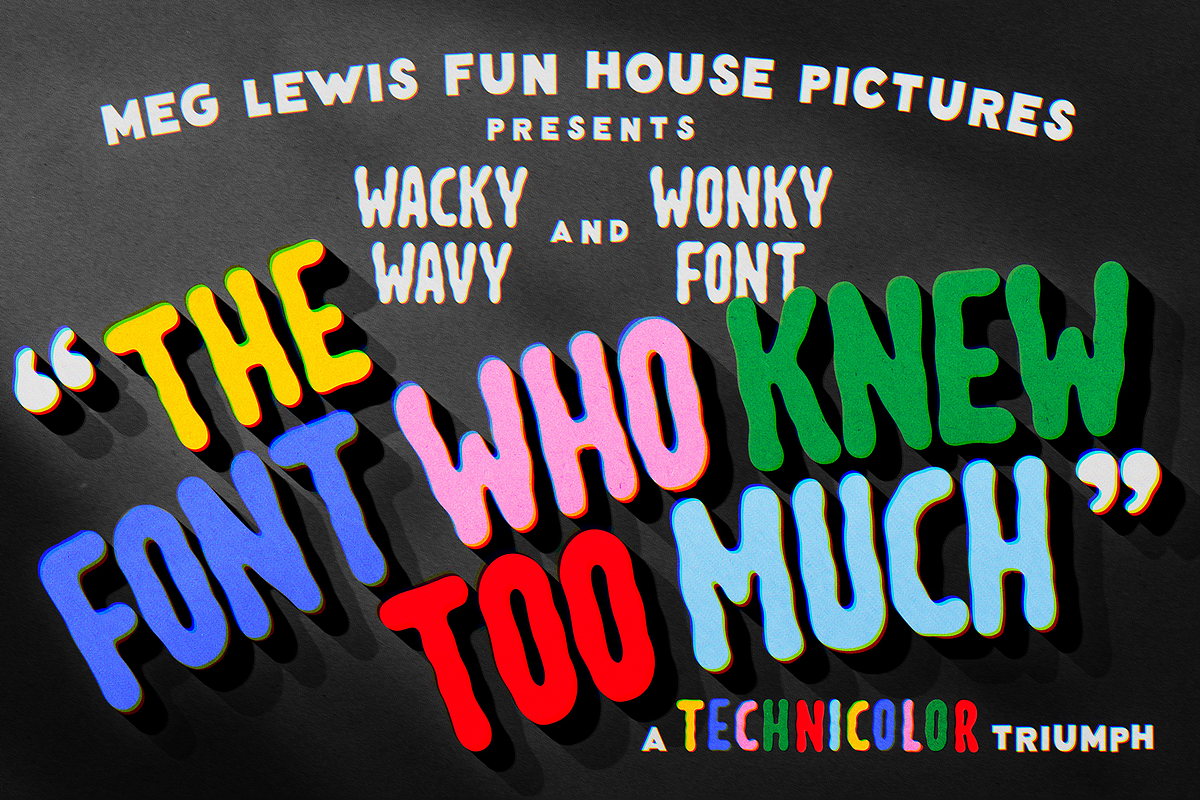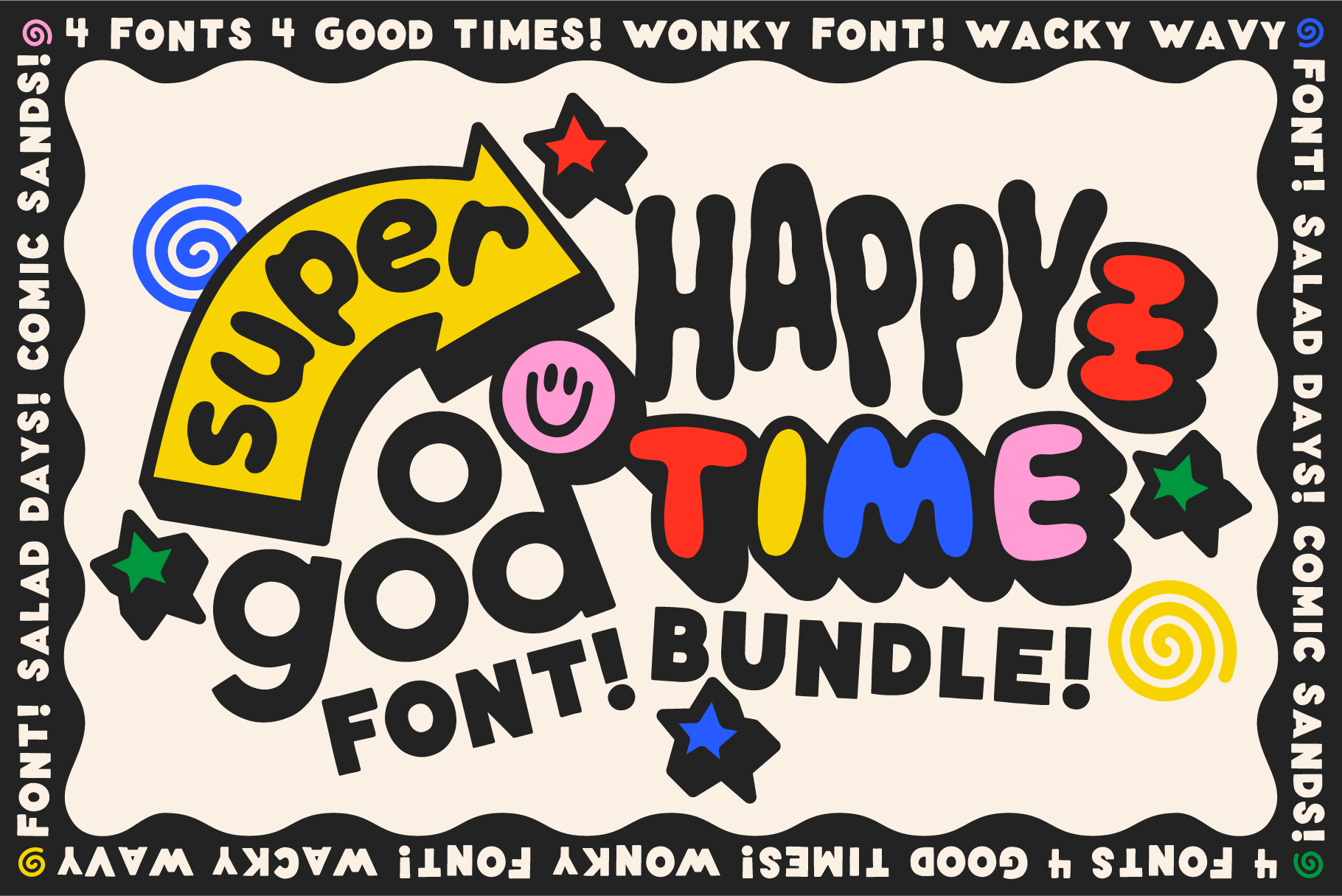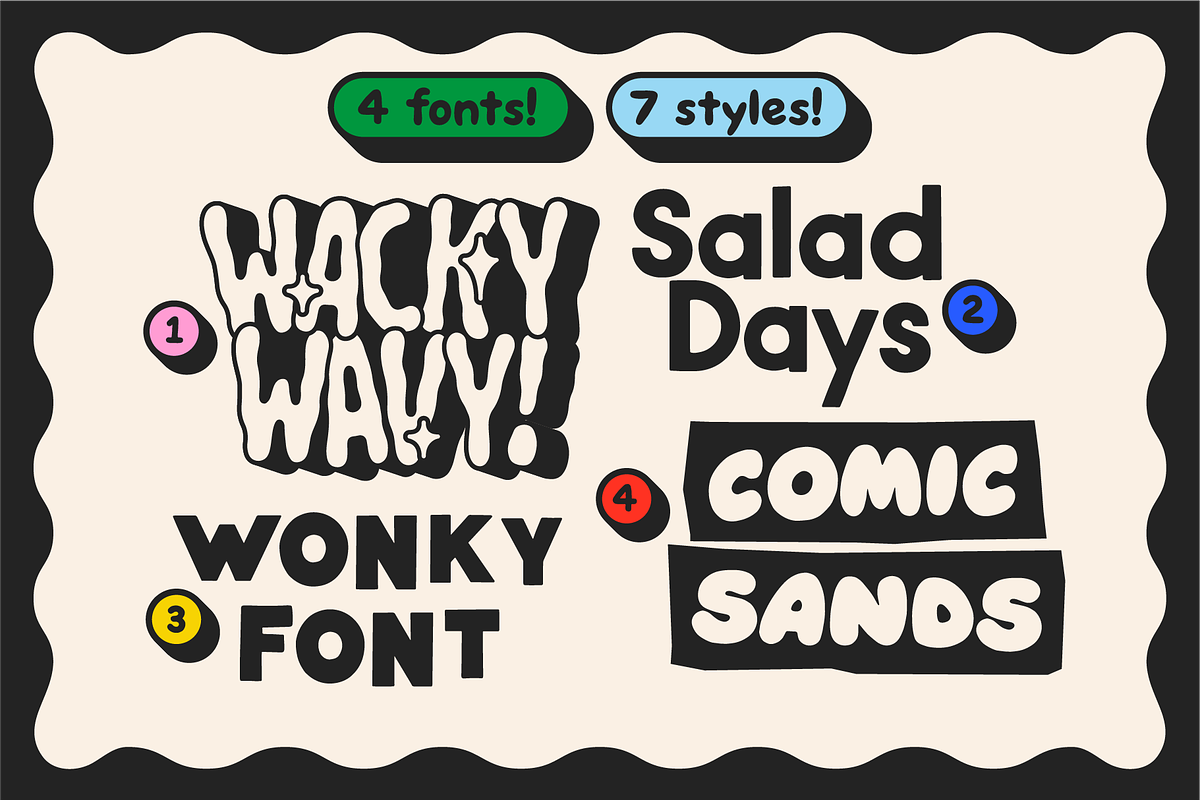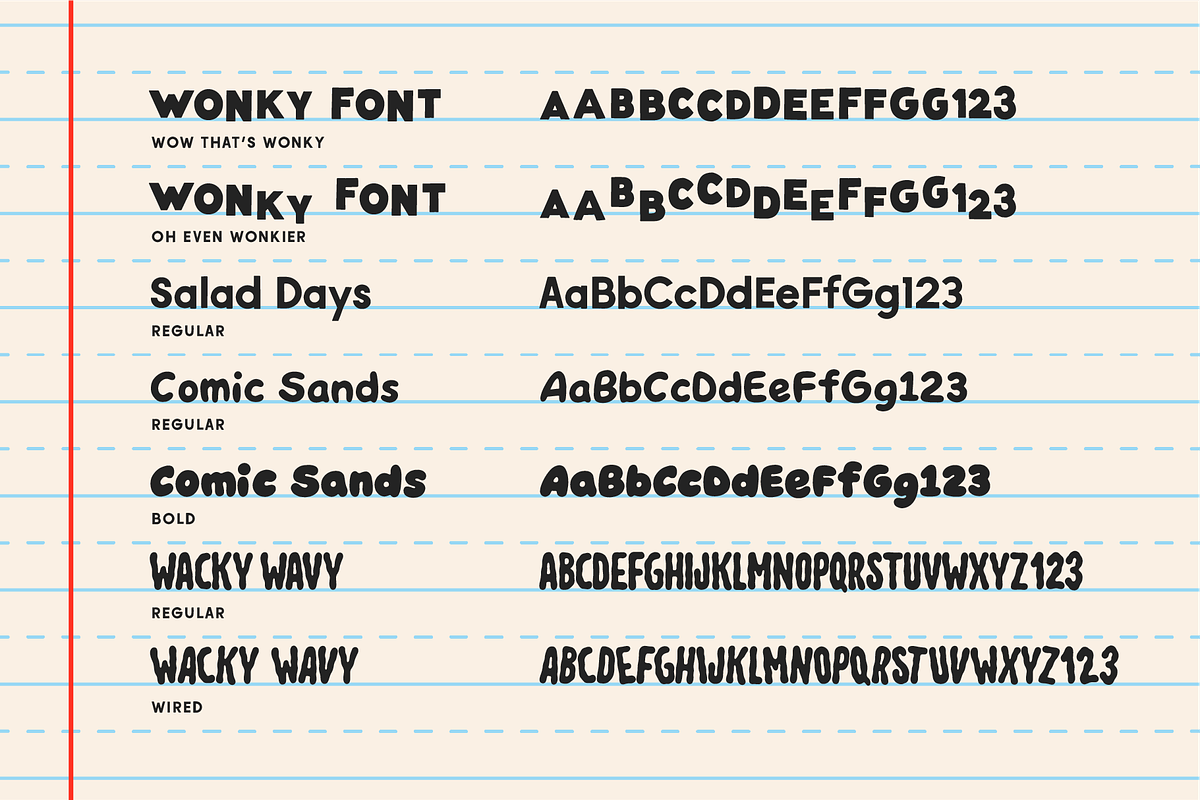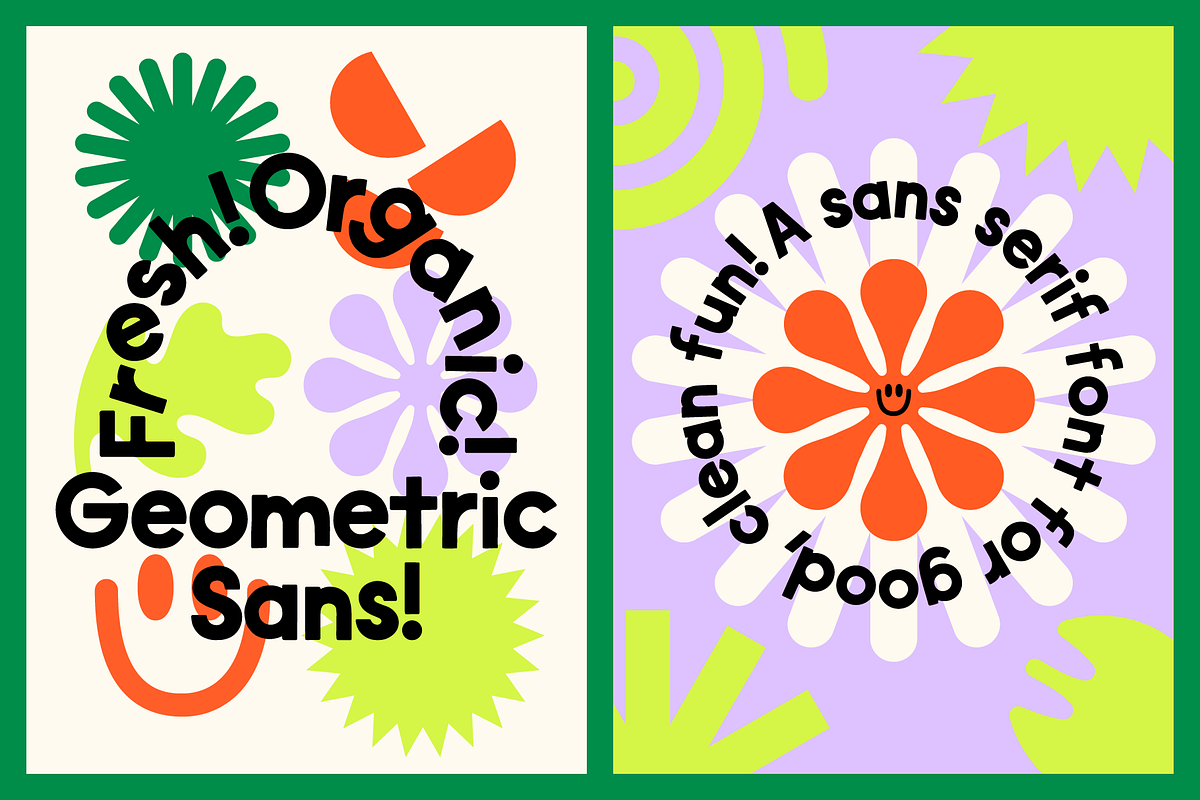
Super Happy Good Time! Font Bundle
Super Happy Good Time is a font bundle of our top 4 best selling fonts! Enjoy 4 fonts in 7 styles at a discounted bundled rate. Details on each font below!
Fonts Included
- Wonky Font!
- Salad Days!
- Wacky Wavy!
- Comic Sands!
Styles Included
- Wonky Font: Wow That's Wonky
- Wonky Font: Oh Even Wonkier
- Salad Days: Regular
- Wacky Wavy: Regular
- Wacky Wavy: Wired
- Comic Sands: Regular
- Comic Sands: Bold
About Wonky Font Wonky font is a magnificently multifunctional font family of two. Wonky font is all caps and has a clean, hand lettered feel. It's nonsensical spacing and subtle differences allow for maximum wonk! Includes alternates to make sure that no character looks too repetitive (see: wonk). And! It comes with two styles: "Wow! That's Wonky" and "Oh! Even Wonkier" depending on the level of wonk you're looking for.
About Salad Days is a playful, handmade geometric sans serif font that doesn't take itself too seriously! Perfect for branding projects, headlines, body copy, or just adding a bit o' joy to any design. Salad Days has little imperfections in each letter and a slightly wonky baseline, but not too much! Salad Days is still clean and easy to read making this a great font for clean design with a touch of personality! It's versatility makes it great for bold, authoritative, Swiss-inspired design all the way to playful graphics that celebrate joy.
About Wacky Wavy Hold on to your wiggly butts, because they're about to be flapping in the breeze with Wacky Wavy - our new, playful and expressive display font! Perfect for adding movement to headlines, making bold statements with social media graphics, and amping up the personality in your branding, this font is guaranteed to add a little color to a black and white world.
About Comic Sands is a blobby parody of my favorite font! It's designed to look like you just drew these letters perfectly. Each character is hand drawn to create subtle variations in cap height, ascender height, x-height, baseline, spacing, weight, and contour line quality! The result is a regular and bold weight that feel like cousins, not twins. They pair well together and look great on comics, brand design, menus, and websites!